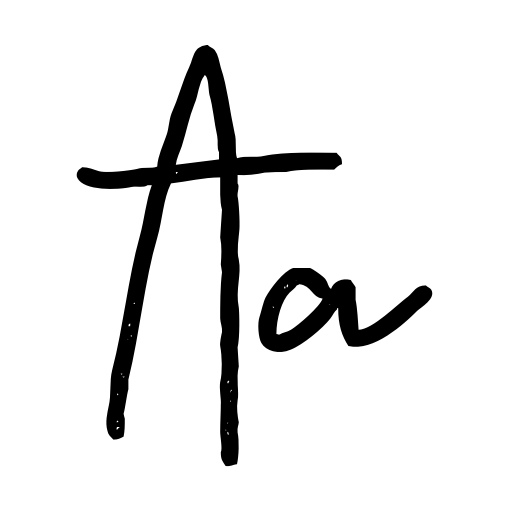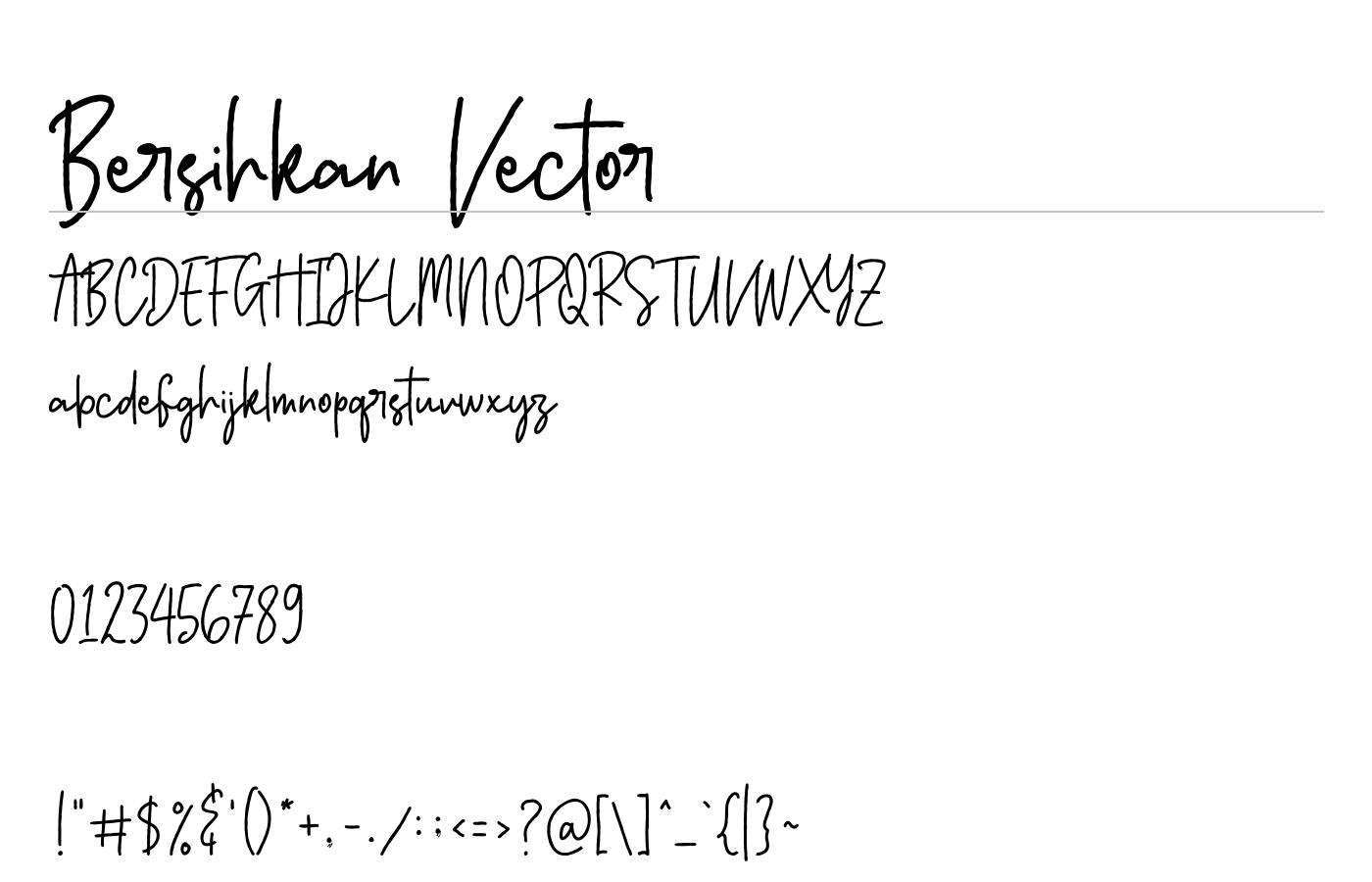
Bersihkan Font is a slender, handwritten script with a natural, casual charm. Its tall, narrow letterforms and uneven strokes give it a personal, playful feel, making it ideal for creative projects, informal branding, and designs that want to convey a friendly, approachable vibe. This font works well in headlines, invitations, and artistic packaging where a touch of handwritten elegance is desired without losing readability.
Bersihkan Font
About Bersihkan Font
| Font family | Bersihkan Font |
| Designer | Muhammad Husni Haikal |